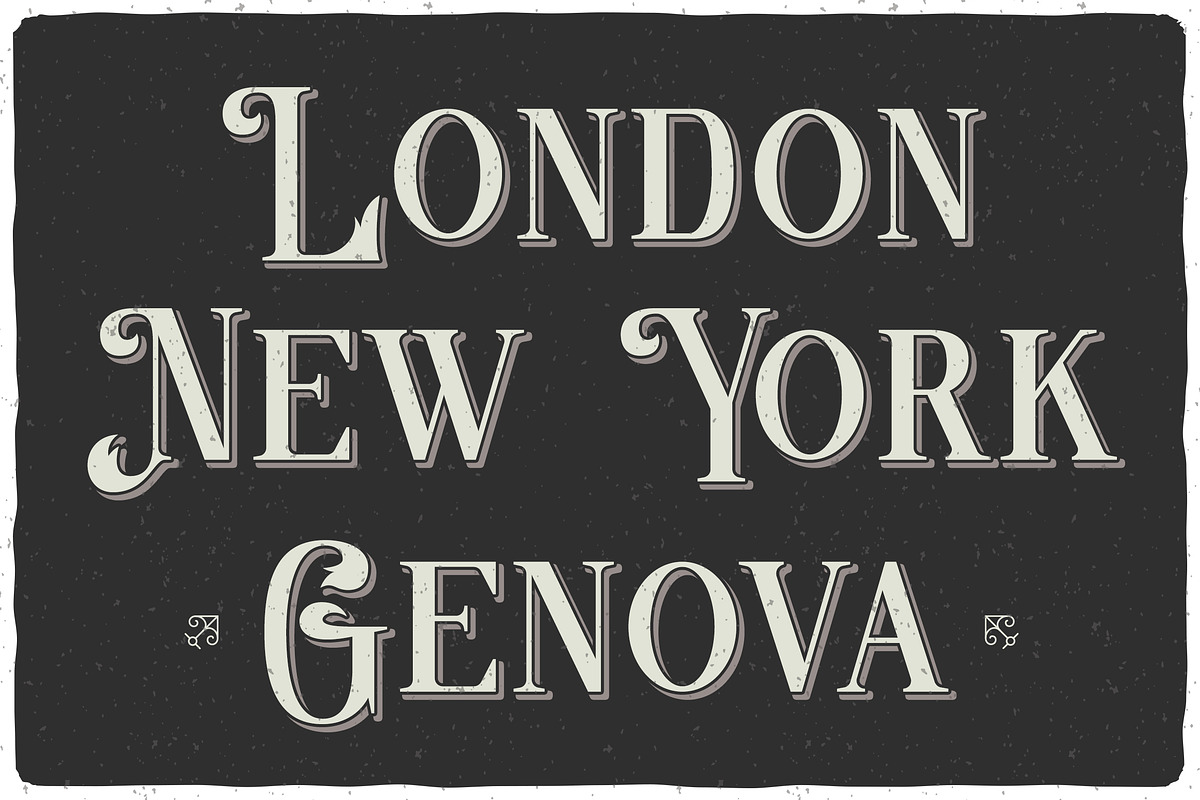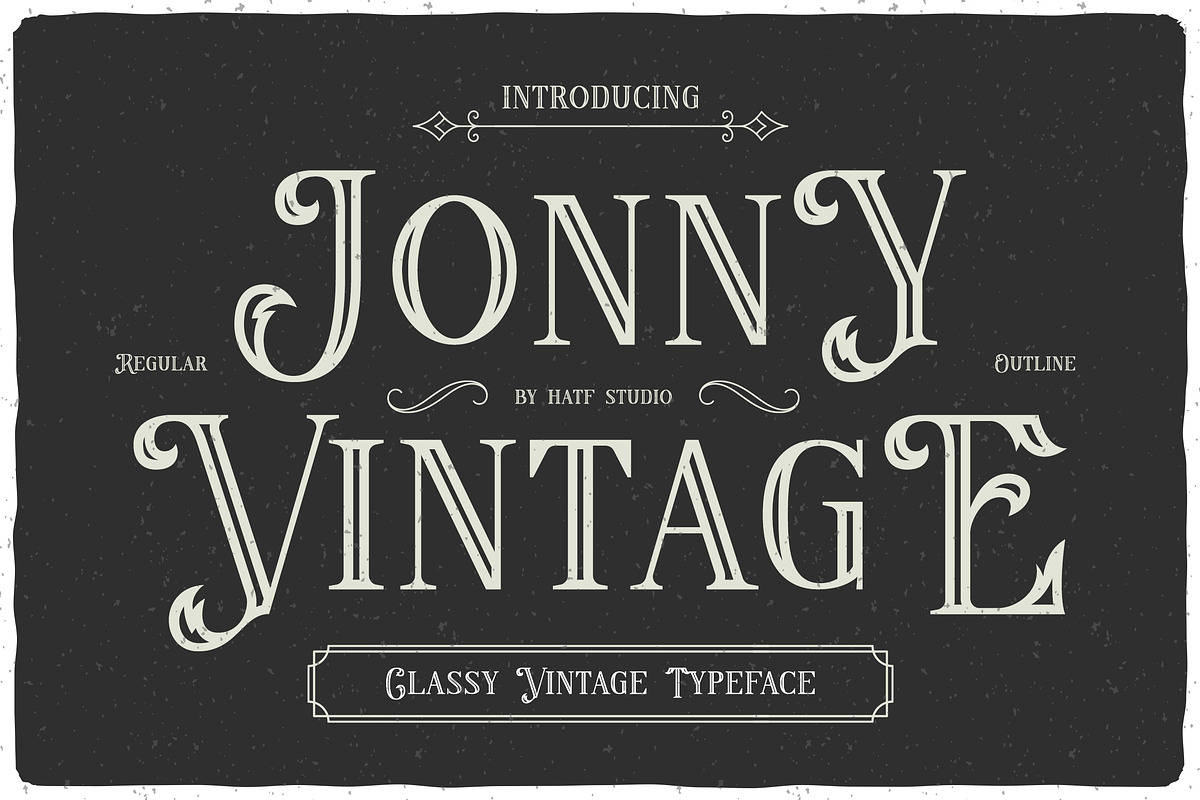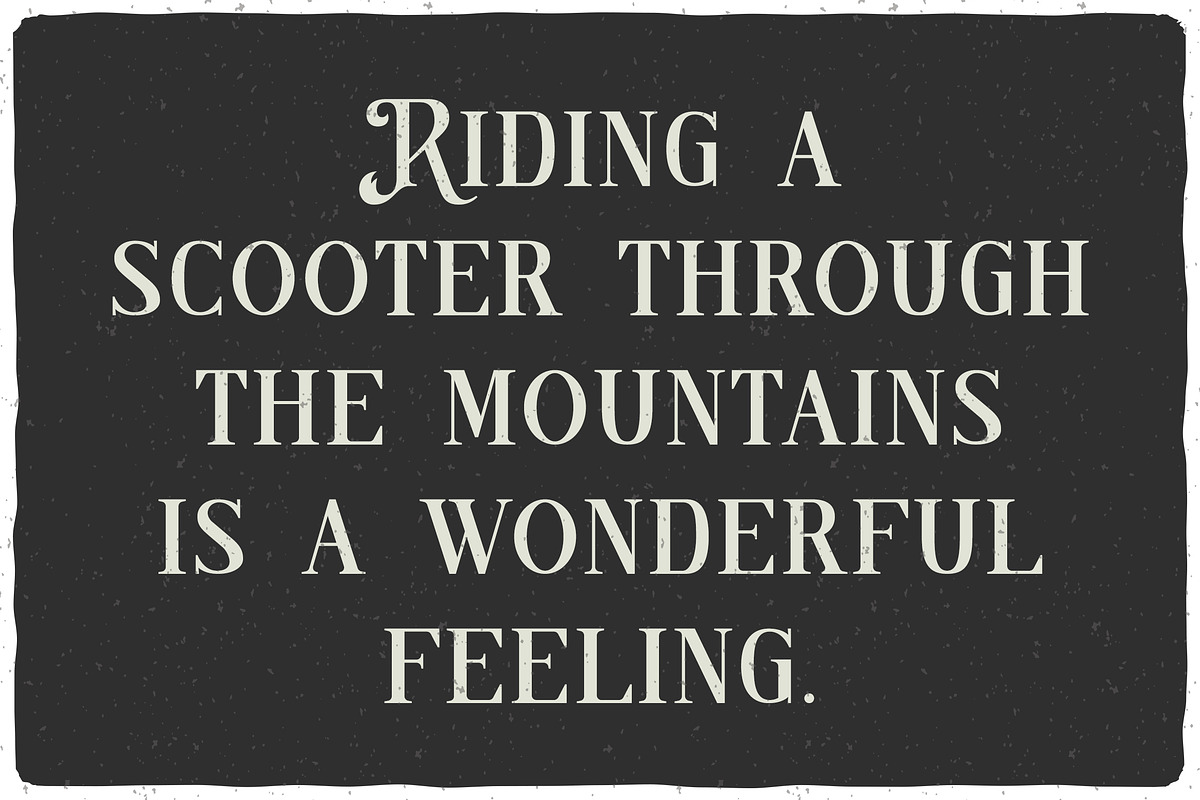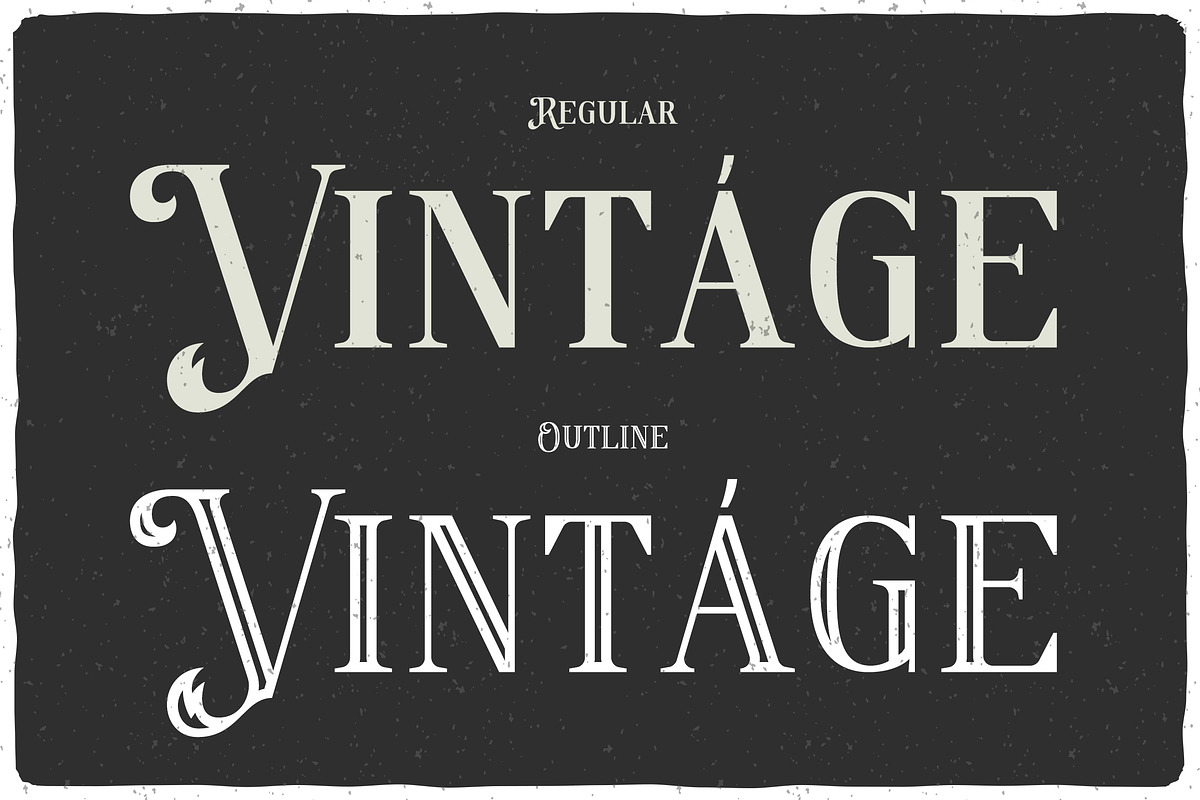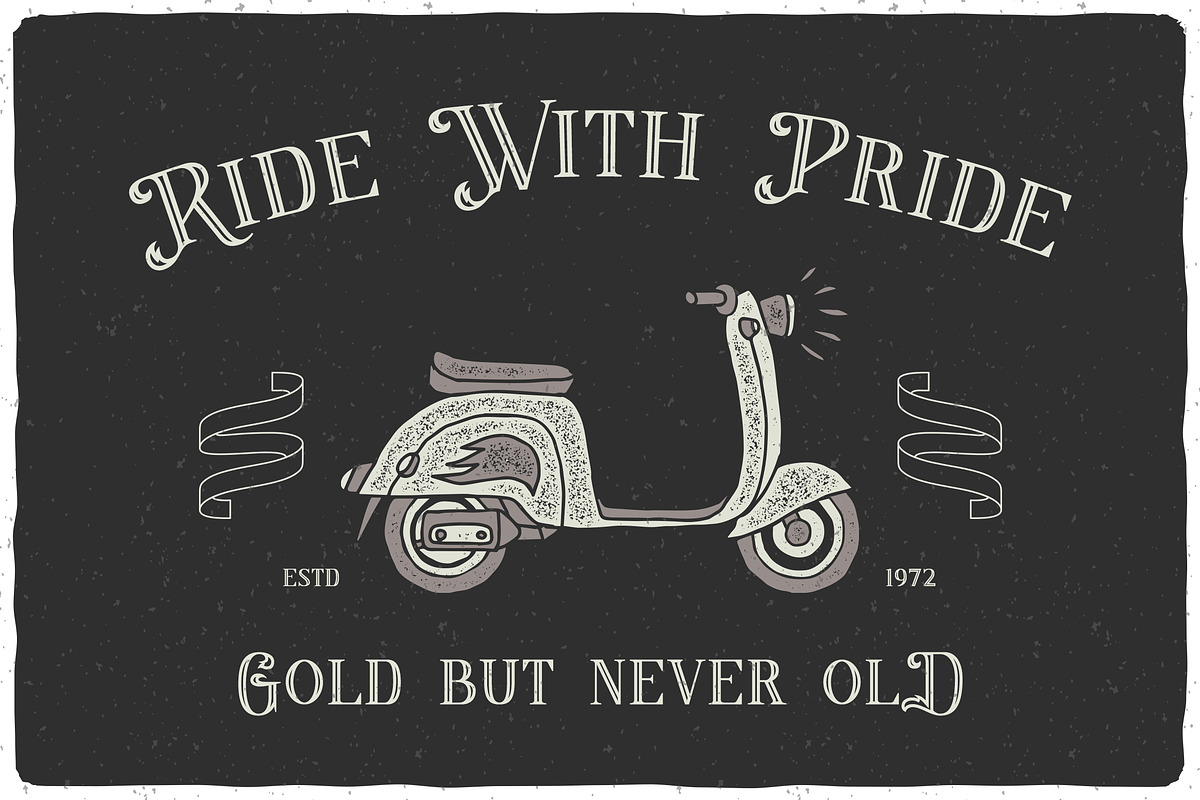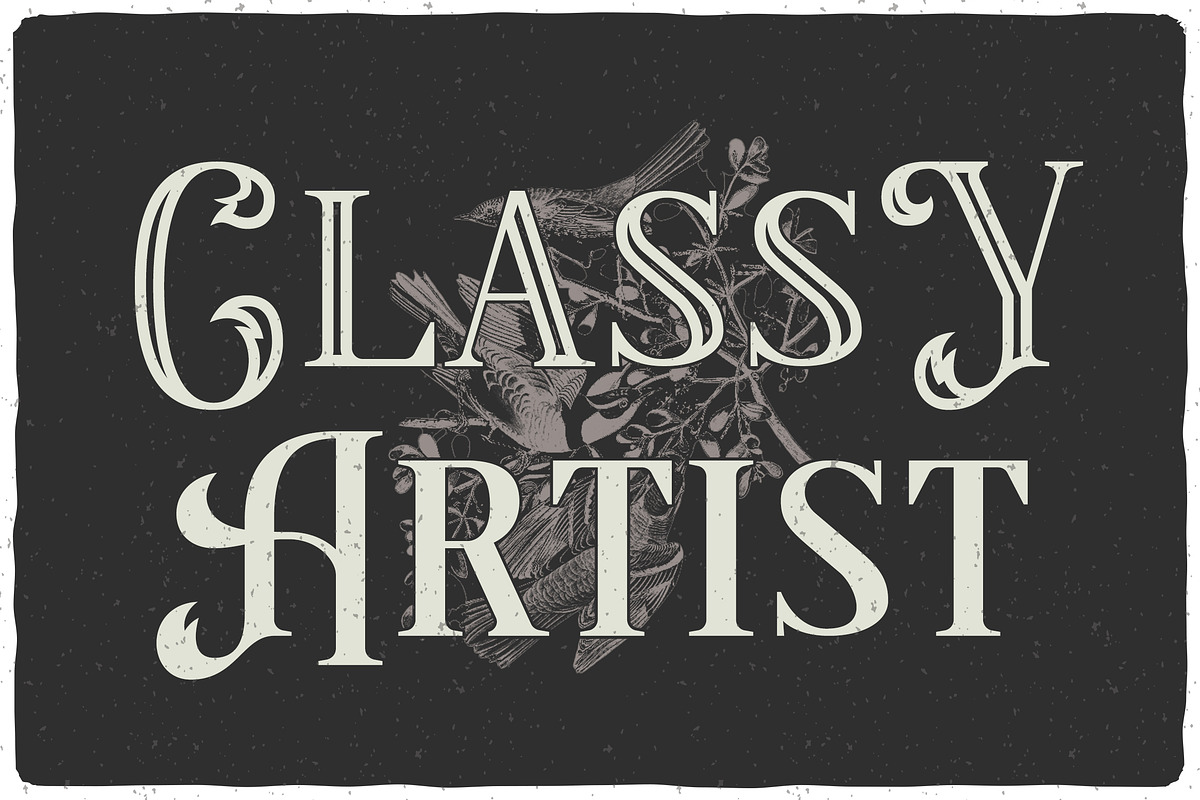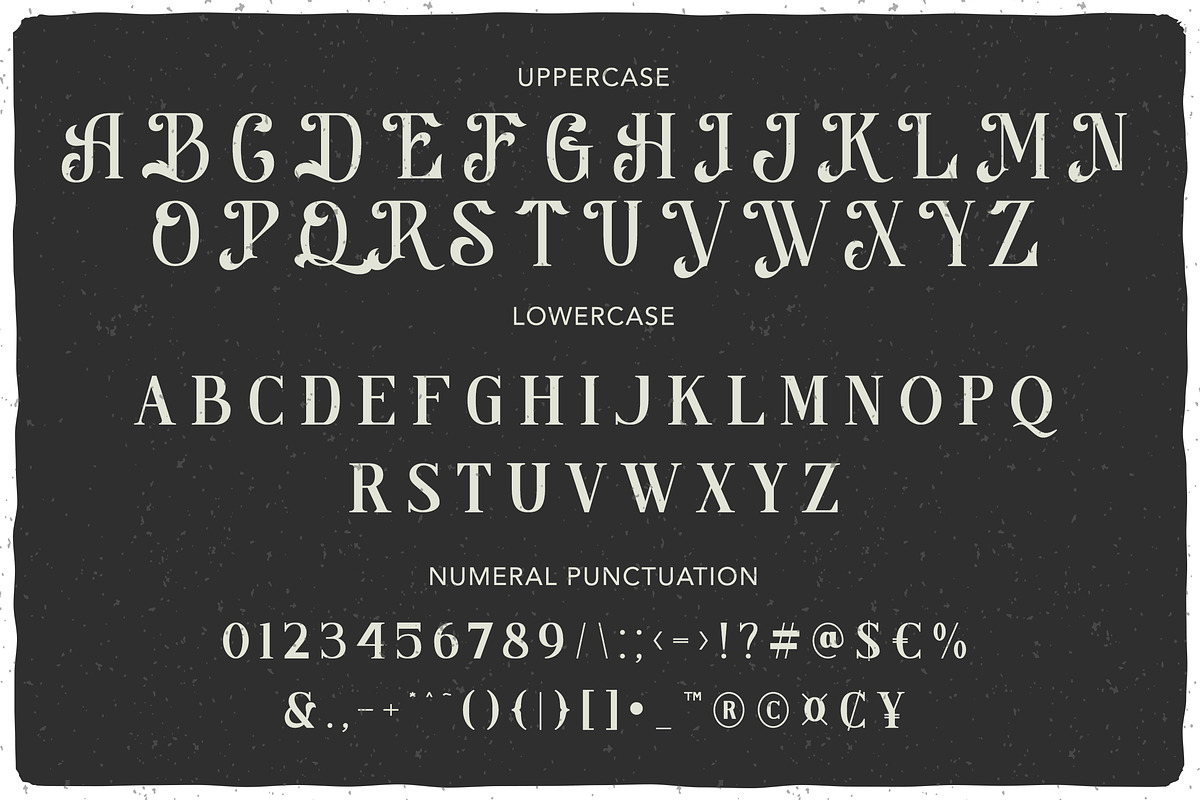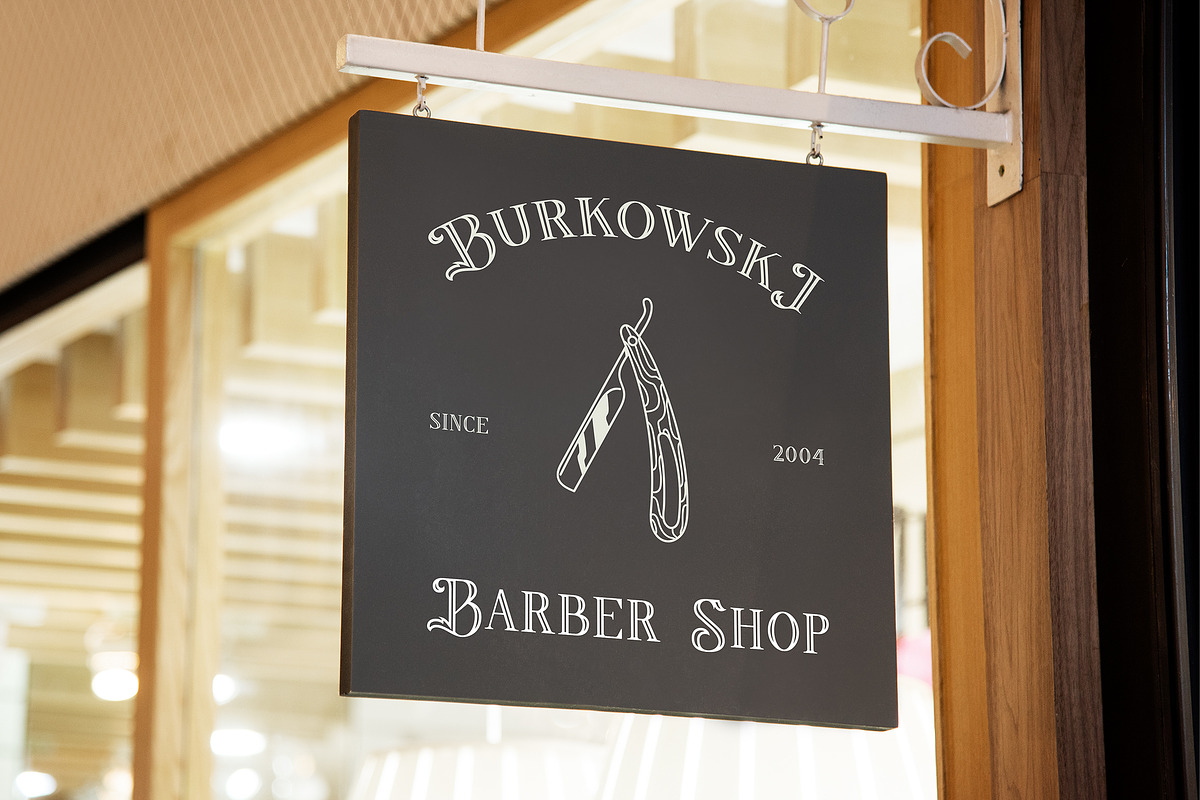
Jonny
Jonny, a vintage typeface that combines classic elegance with a subtle modern touch. With a design inspired by eras gone by, Jonny exudes an alluring charm and a strong character. Each letter is carved with meticulous detail, creating a sense of calm and elegance unrivaled. With its elegant and spacious style, this font is suitable for projects that require a classic retro touch but still provide a fresh and contemporary feel. Jonny is the perfect choice for creating timeless and stylish designs.